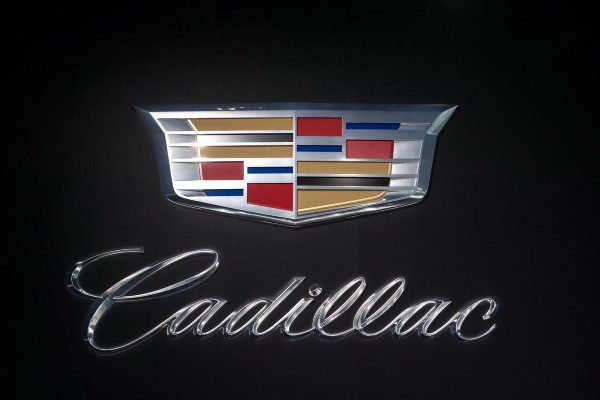
Cadillac font
The name of the Cadillac font that looks like alot like the official logo used for this American car maker, is a typeface of the same name call Cadillac Italic.
This font contains all the uppercase and lowercase characters / glyphs that you'll need to create an exact replica of the original Cadillac font lettering.
Just like the company's car models, the Cadillac font screams elegance and prestige. A cursive typeface, each character features smooth and rounded curves that will surely draw your target audience in and make your brand irresistibly sleek. The timelessness of the Cadillac font will make your design classic and effortless. Use this font for formal invites, greeting cards, posters, book covers, and even, if you dare to think outside the box, for your next tattoo! Be creative and add a personal touch to your own Cadillac font by using this generator tool. You will be ready with your projects in no time!
About the Cadillac typeface
Named after the founder of Detroit, Michigan, Antoine de la Mothe Cadillac, Cadillac was founded by Henry Leland in 1902. A genius idea came 6 years later when it introduced the concept of interchangeable parts to the automotive industry, setting the scene for modern mass production of automobiles. This innovation led Cadillac to win the Royal Automobile Club's Dewar Trophy, one of the most prestigious awards in British engineering. Cadillac earned another Dewar Trophy in 1912 for pioneering electric starter and electric automotive lights, making it the only car manufacturer to receive the award twice. For all its innovations, Cadillac was hailed "Car of the Year" in 1949.